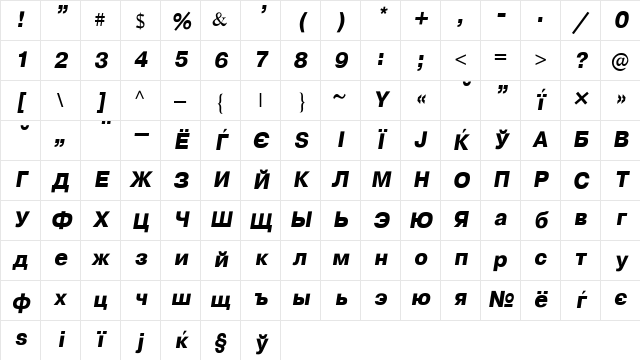
CyrillicHelv Bold Italic
Design Context for CyrillicHelv
CyrillicHelv is a composed and adaptable typeface that performs quietly and consistently across a wide range of design contexts. The slanted form adds forward momentum and visual energy. Its bold stroke weight gives it real presence on the page.
Pro Tip: Use CyrillicHelv for emphasis, pull quotes, and subheadings where its slanted energy can add rhythm to the layout.